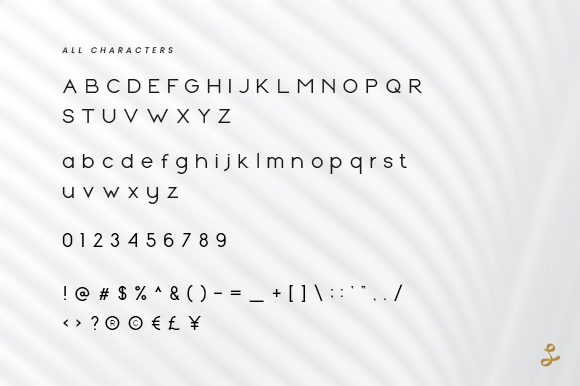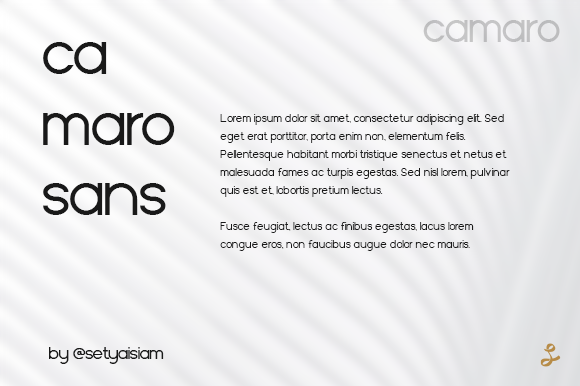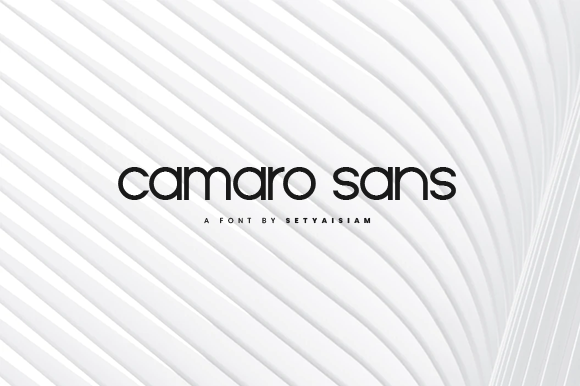
Camaro Font: A Timeless Classic for Elegant Designs
When it comes to creating visually stunning designs, the right font can make all the difference. For designers and crafters looking for a font that exudes charm and elegance, Camaro Font is an excellent choice. This sans serif font boasts a classic style that is both sophisticated and approachable, making it perfect for a wide range of design projects.
The Charm of Camaro Font
Camaron feels equally charming and elegant, making it an excellent addition to any designer’s toolkit. Its classic style is reminiscent of traditional typography, while its friendly feel ensures that it remains approachable and accessible. Whether you’re working on a logo, brochure, or website, Camaro Font is sure to make your design stand out.
Key Features of Camaro Font
- Classic Style: Camaro Font features an incredibly classic style that is both timeless and sophisticated.
- Friendly Feel: Despite its classic style, Camaro Font still manages to feel friendly and approachable, making it perfect for designs that require a personal touch.
- Sans Serif: As a sans serif font, Camaro Font is clean and easy to read, making it perfect for body text and headings.
- Versatile: Camaro Font is incredibly versatile, making it suitable for a wide range of design projects, from logos and brochures to websites and more.
Why Choose Camaro Font?
So, why choose Camaro Font for your next design project? Here are just a few reasons why this font stands out from the crowd:
- Elegance: Camaro Font exudes elegance and sophistication, making it perfect for designs that require a high-end feel.
- Originality: With Camaro Font, you can create original and outstanding designs that are sure to grab attention.
- Readability: The clean lines and simple shapes of Camaro Font make it easy to read, even at small sizes.
- Flexibility: Camaro Font is suitable for a wide range of design projects, from print to digital.
Using Camaro Font in Your Designs
So, how can you use Camaro Font in your designs? Here are a few ideas to get you started:
- Logos: Camaro Font is perfect for creating elegant and sophisticated logos that are sure to make a lasting impression.
- Brochures: Use Camaro Font to create stunning brochures that showcase your products or services in style.
- Websites: Camaro Font is a great choice for websites that require a high-end feel and a touch of elegance.
- Social Media Graphics: Use Camaro Font to create eye-catching social media graphics that are sure to grab attention.
Tips for Getting the Most Out of Camaro Font
To get the most out of Camaro Font, here are a few tips to keep in mind:
- Experiment with Different Sizes: Camaro Font looks great at a wide range of sizes, so don’t be afraid to experiment to find the perfect size for your design.
- Pair it with Other Fonts: Camaro Font pairs well with a wide range of other fonts, so feel free to get creative and experiment with different combinations.
- Use it Consistently: To create a cohesive look, use Camaro Font consistently throughout your design.
In conclusion, Camaro Font is an excellent choice for designers and crafters looking for a font that exudes charm and elegance. Its classic style, friendly feel, and versatility make it perfect for a wide range of design projects. Whether you’re working on a logo, brochure, website, or social media graphic, Camaro Font is sure to make your design stand out. So why not give it a try and see the difference it can make?